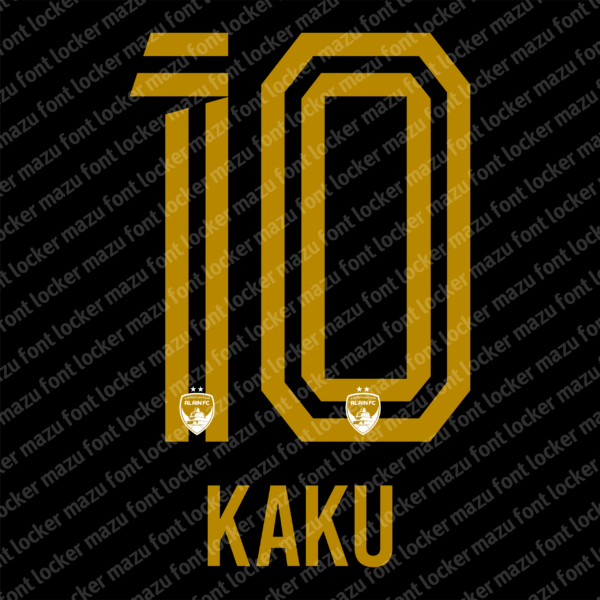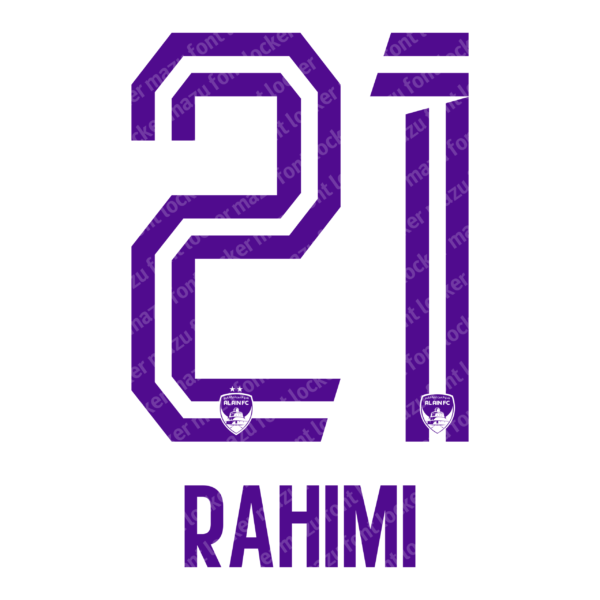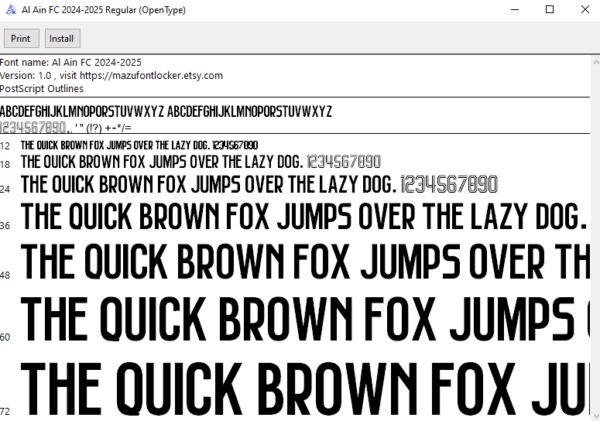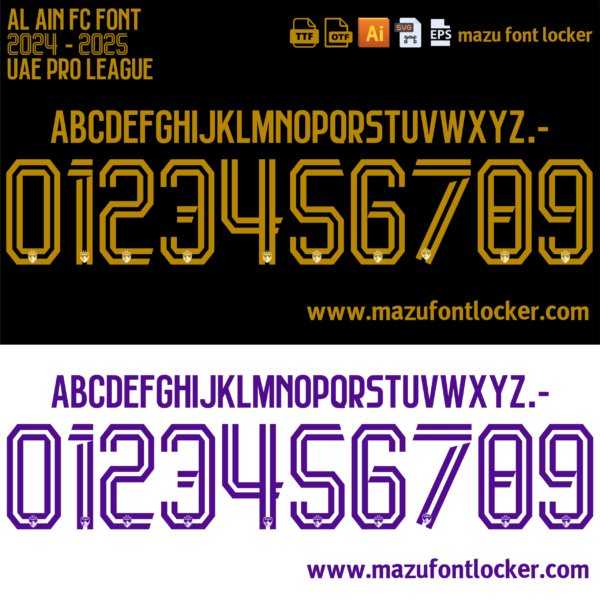
Al Ain FC 2024-2025 Font Vector – Epic Al Zaeem Masterpiece
Download Al Ain FC 2024-2025 Font today and unleash the dominant spirit of Asia’s football powerhouse. Al Ain FC 2024-2025 Font is a premium, high-precision football jersey font vector expertly crafted to embody the fearless identity, glorious heritage, and royal ambition of one of Asia’s most successful football clubs.
Inspired by Al Ain FC’s legendary legacy as “The Boss” and their continued dominance in the UAE Pro League and AFC Champions League, this font delivers a bold, majestic, and commanding visual style that captures the true essence of Emirati football excellence. Every letter and number has been meticulously recreated with razor-sharp precision to reflect the winning mentality, unstoppable determination, and iconic purple-and-white identity that defines the mighty Al Zaeem.
Celebrate the legacy of Al Ain FC. Unleash the power of the Al Zaeem. Bring the unstoppable spirit of UAE football greatness to life with the Al Ain FC 2024-2025 Font.
Al Ain FC 2024-2025 Font Vector
The Al Ain FC 2024-2025 Font is a premium, high-precision football jersey font vector expertly crafted to embody the fearless identity, glorious heritage, and explosive passion of one of Asia’s biggest and most successful football clubs.
Inspired by Al Ain FC’s legendary warrior spirit, their relentless pursuit of dominance, and historic triumphs in the UAE Pro League and AFC Champions League, this font delivers a bold, aggressive, and majestic visual style that captures the true essence of Emirati and Asian football supremacy. Every letter and number has been meticulously recreated with razor-sharp precision to reflect the unbreakable determination, championship mentality, and iconic purple-and-white identity that defines the mighty Al Zaeem.
Celebrate the legacy of Al Ain FC. Unleash the power of the Al Zaeem. Bring the unstoppable spirit of Al Ain greatness to life with the Al Ain FC 2024-2025 Font.
• Authentic 2024-2025 Al Ain FC jersey lettering style
The authentic lettering style helps recreate the classic look of the Al Ain FC 2024-2025 kit with professional accuracy.
Unlike generic jersey fonts, this set is designed with a strong focus on authenticity and accuracy. Every detail is based on the original match lettering style used during the 2024-2025, helping designers and collectors create realistic football shirt designs.